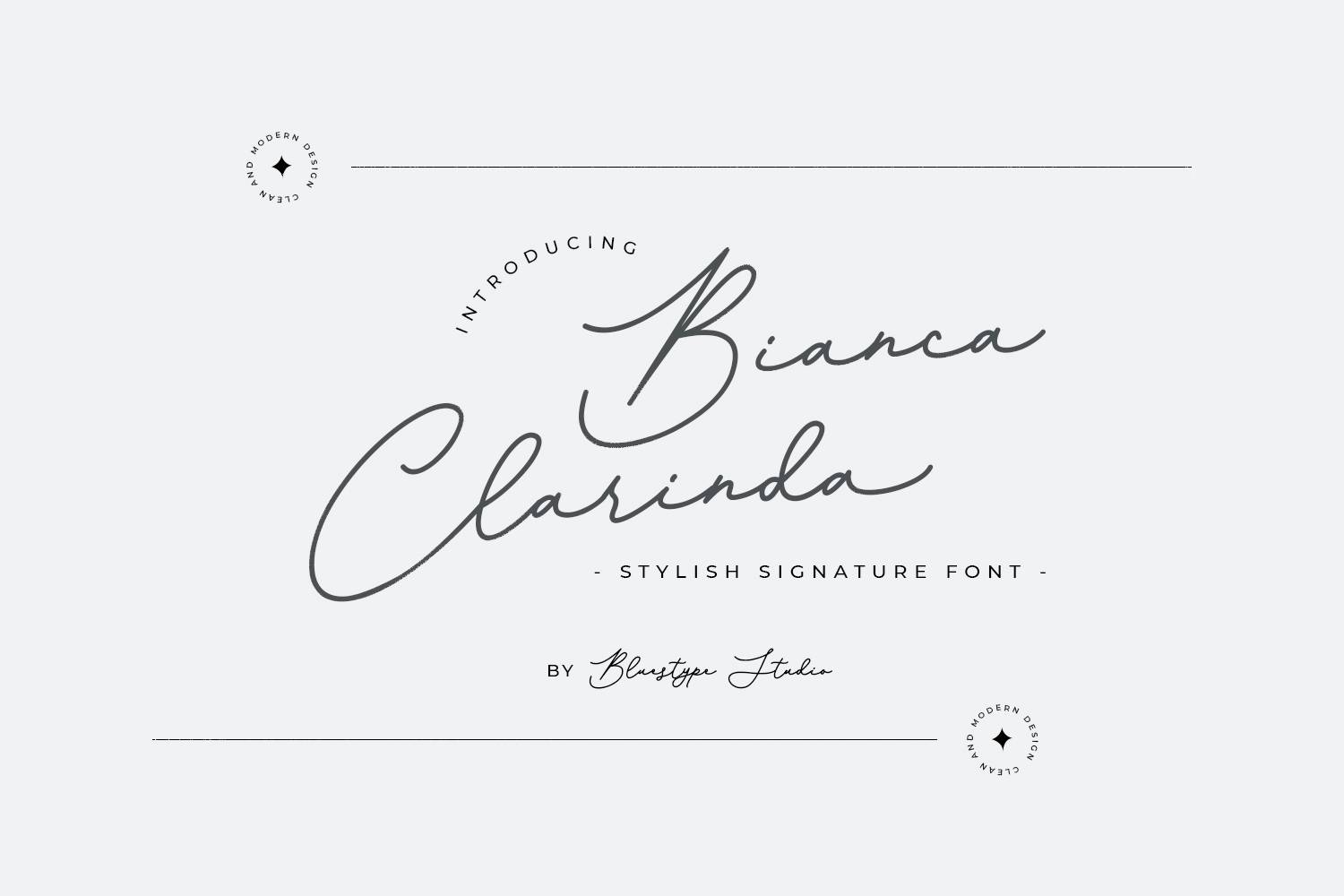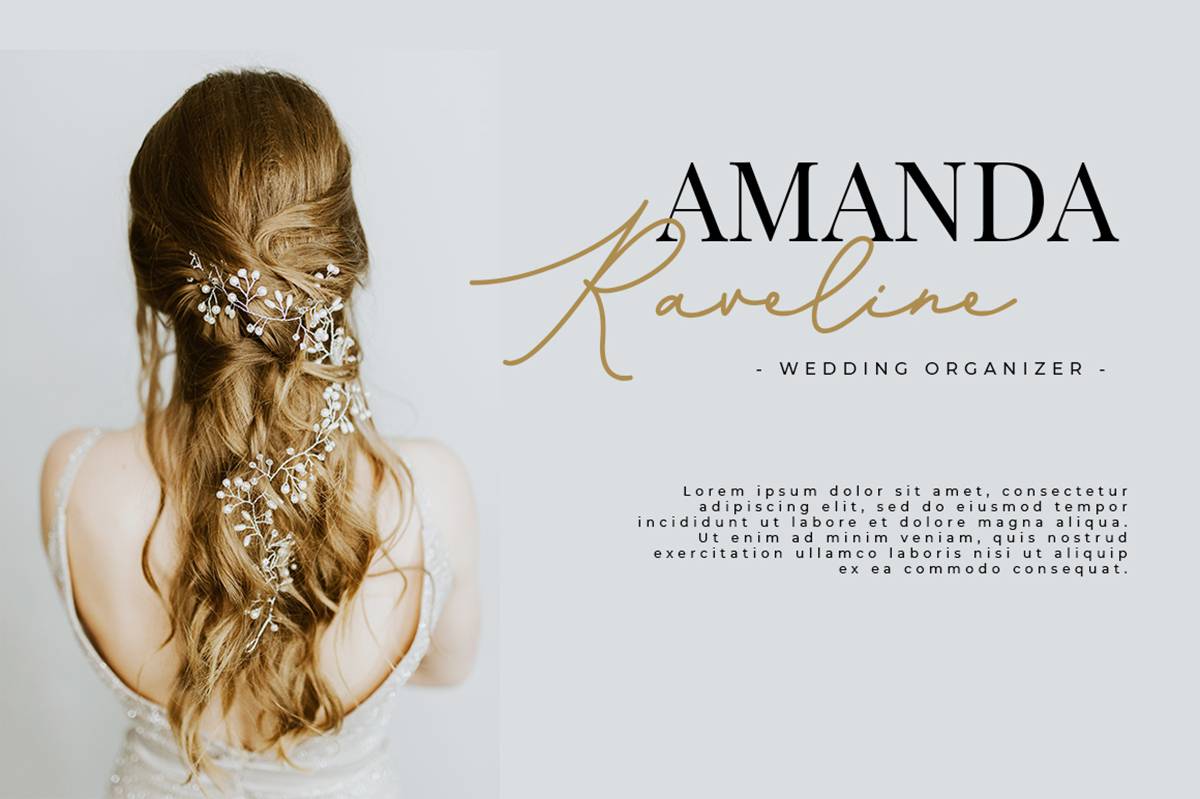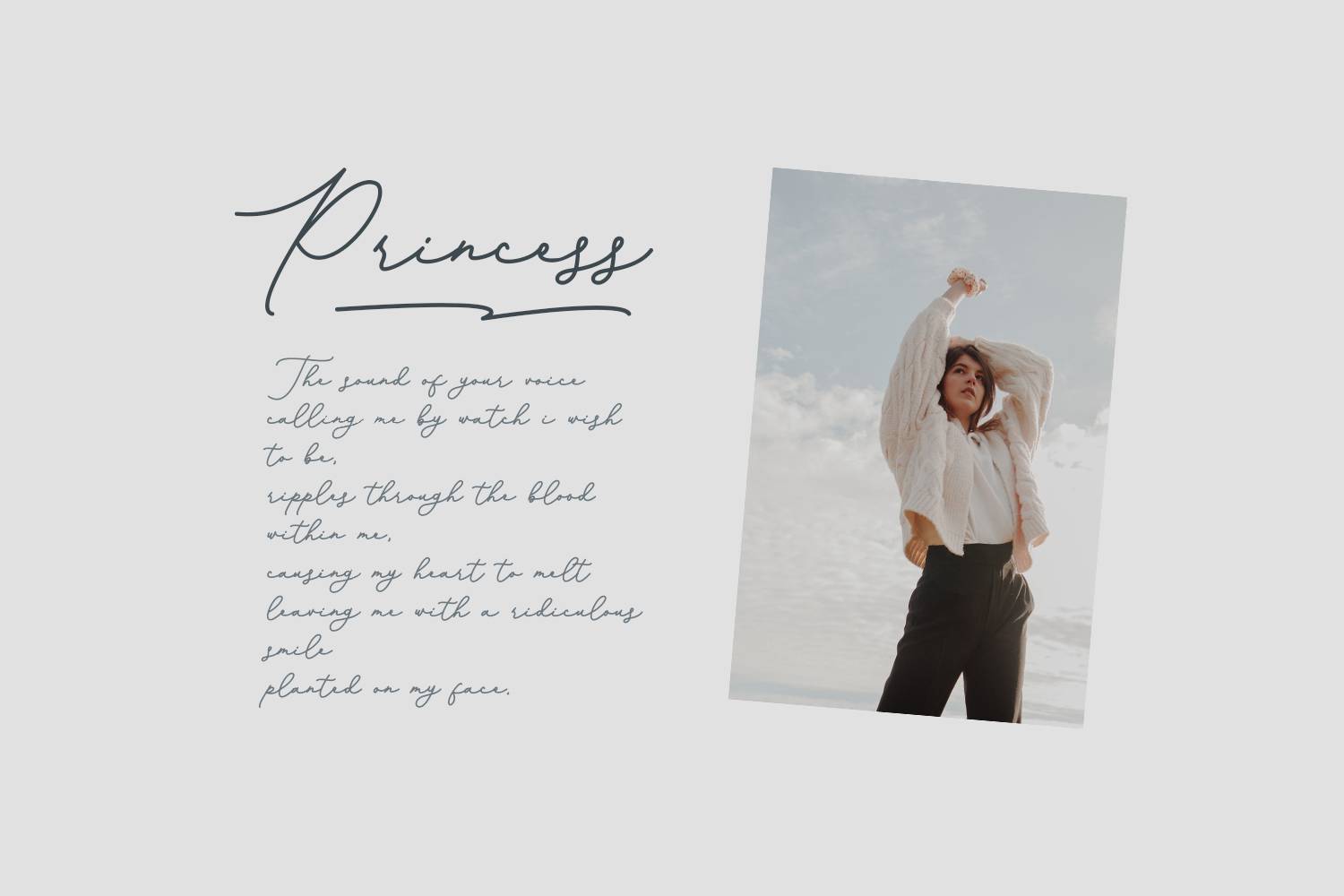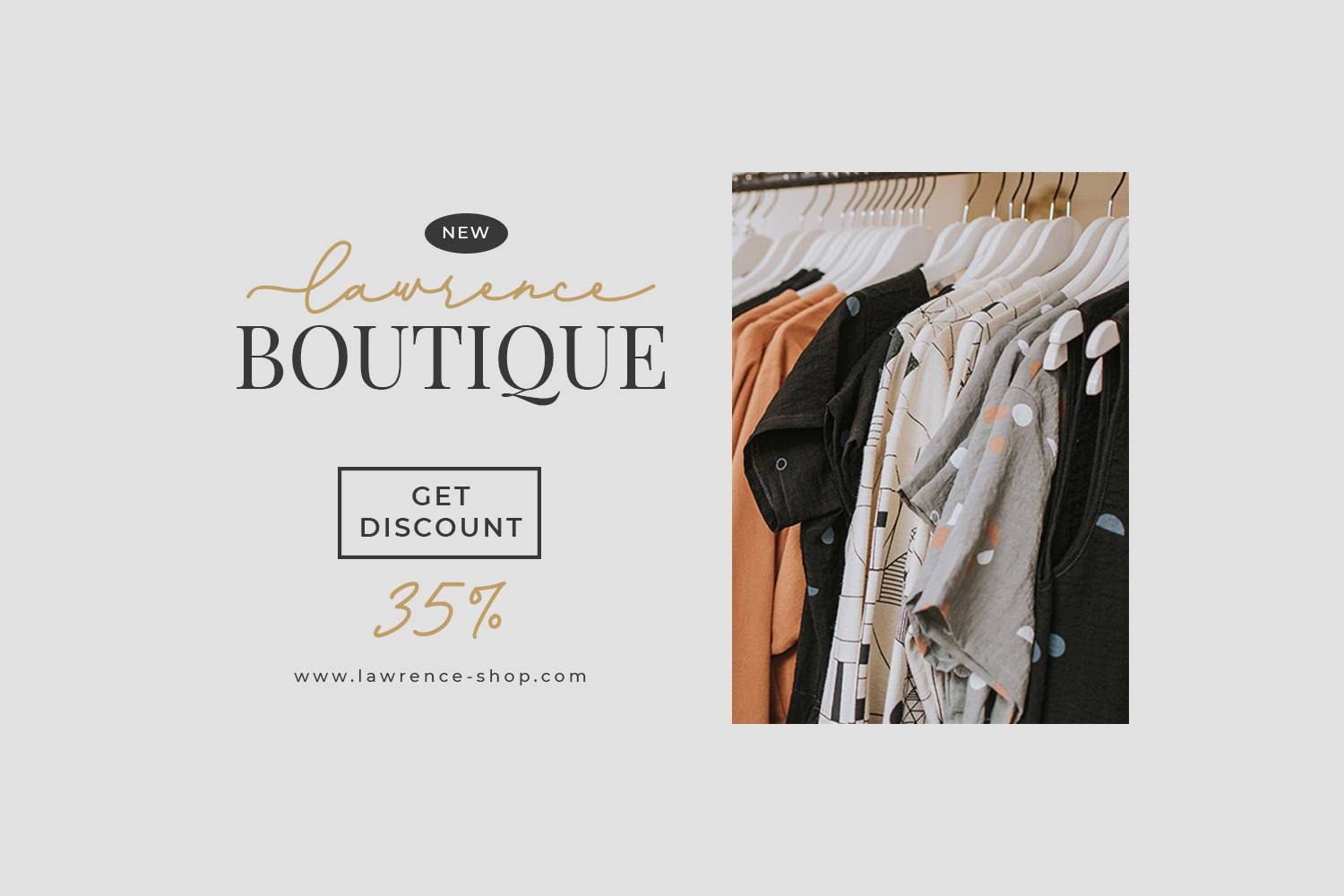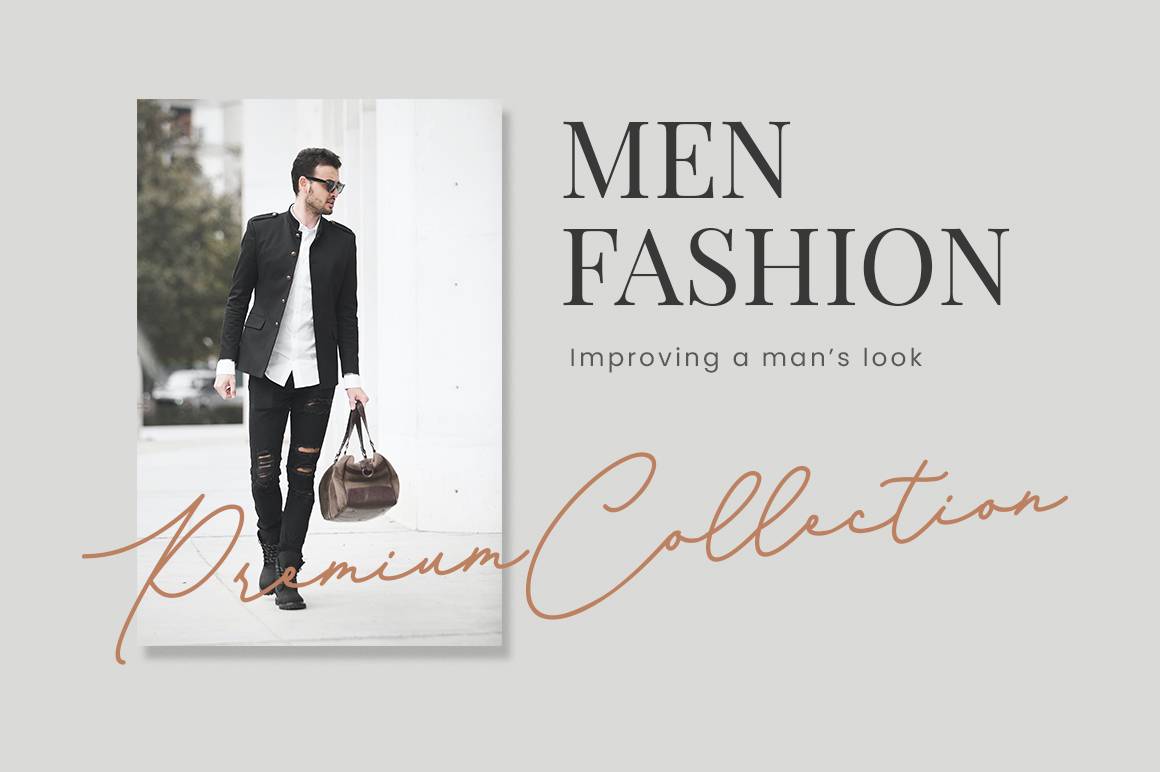
Bianca Clarinda is an elegant, handwritten script font characterized by its fine, flowing strokes and delicate lines that create a graceful, personal touch. Its slender letterforms and smooth connections make it ideal for sophisticated branding, wedding invitations, or any design that seeks a refined and intimate feel. This font works beautifully in headlines, logos, and decorative text where a stylish and airy handwritten look is desired.
Bianca Clarinda Font
About Bianca Clarinda Font